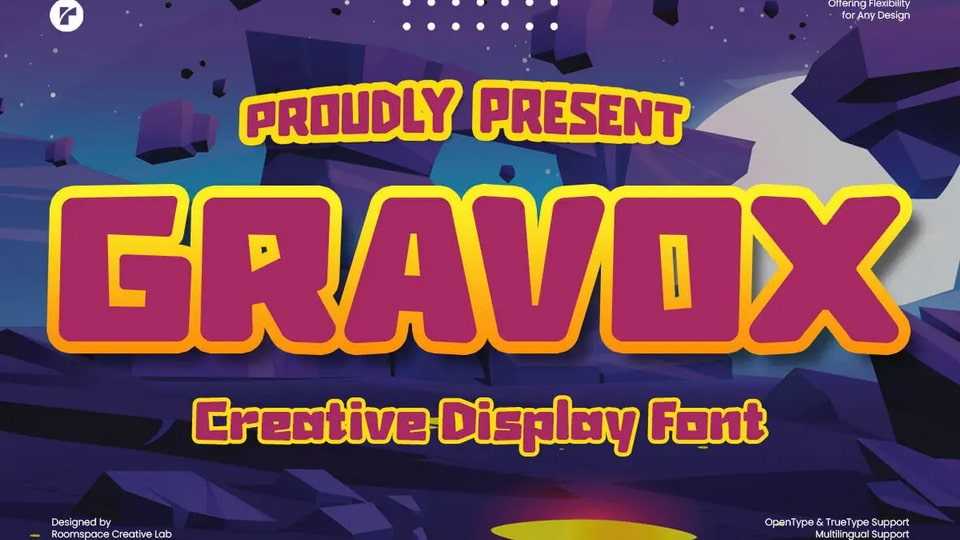
Download Gravox font, a bold and dynamic typeface designed for gamers, developers, and creative minds, inspired by arcade classics, Nintendo aesthetics, and modern futuristic displays.